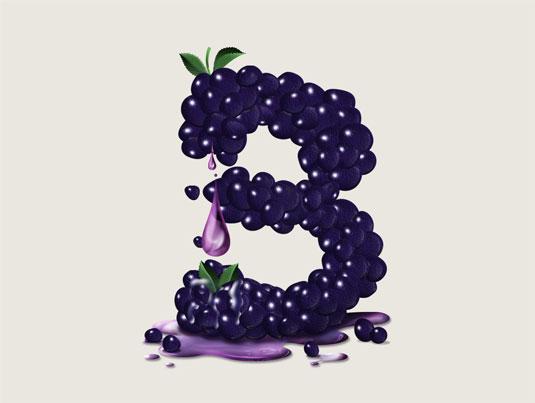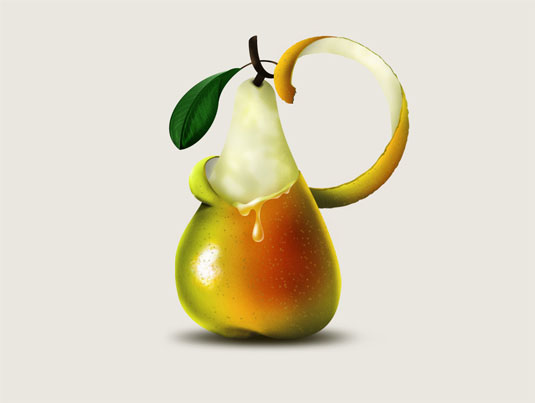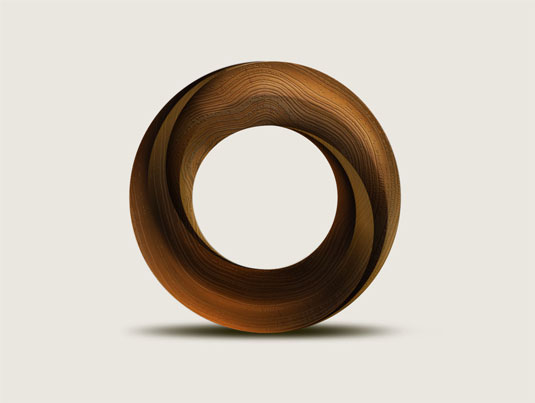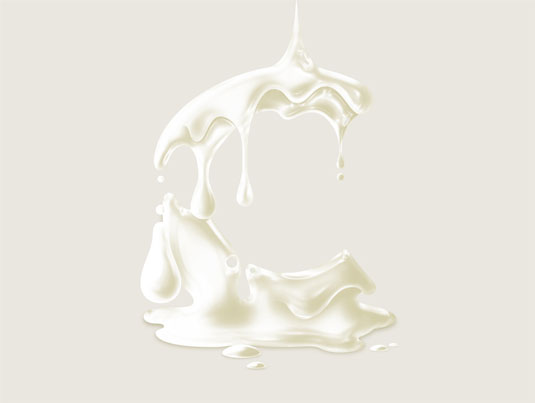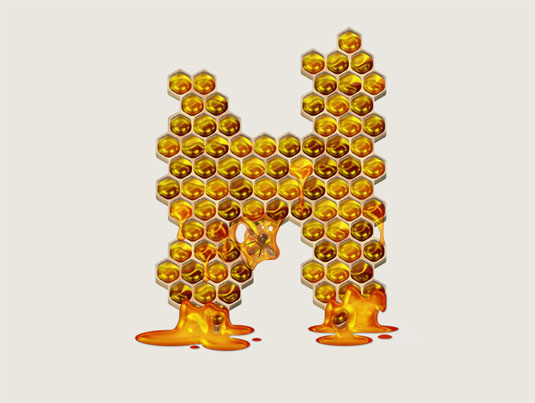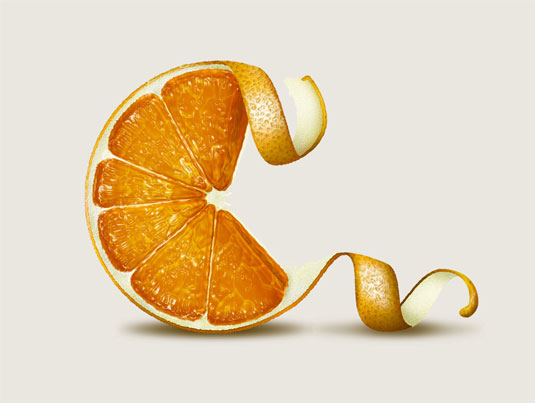
Have I got booze for you: whisky-flavoured typography
Who said typographers lacked spirit? This specially-created typeface reflects the complex tasting notes of a 12-year-old Scotch.
Scottish illustrator Steven Bonner was presented with a unique challenge by Ballantine's Scotch Whisky - to create a series of illustrated letters that would represent the flavour characteristics of the company's '12 Year Old Whisky'.
Steven worked with Digital Agency of the Year Work Club to produce the project. His involvement was split into two parts. Firstly, he illustrated the seven main tasting notes as illuminated letters, with each telling the story of its own flavour. The illustrations were then animated as part of an introductory story that asks you to ‘Go Beyond’ the blend and explore the notes that make up this premium blend.
Custom typeface
Secondly, he designed a custom typeface inspired by the blend which the viewer could use to create their own customised Facebook cover image. The typeface uses a flourished and a simple version of each character so the user can mix and match letters to create unique combinations.
An even more ornate version of the typeface was used in the final outcome, which includes decorative illustrations representing each tasting note on the letters. You can see the final outcome and illustrated animation over on the Ballantine's website.